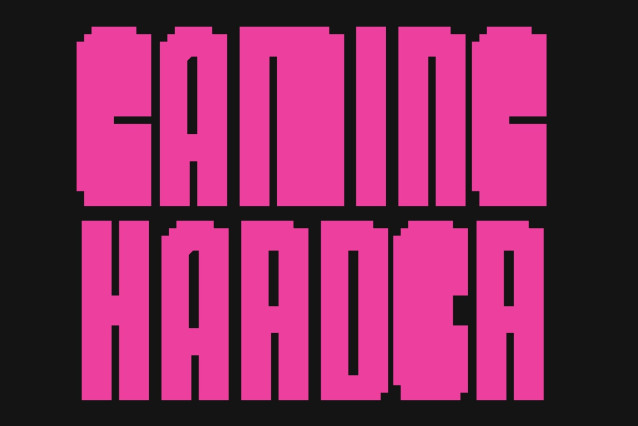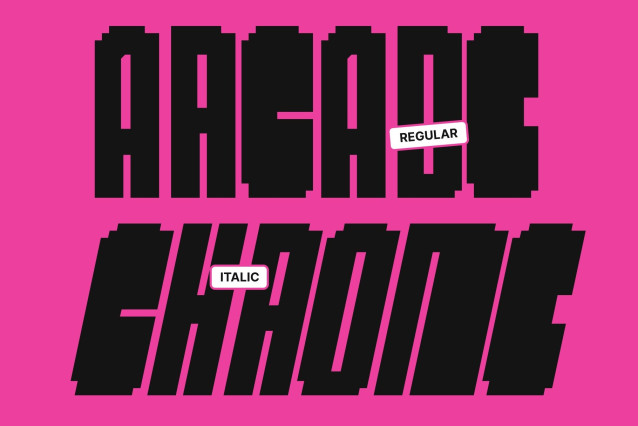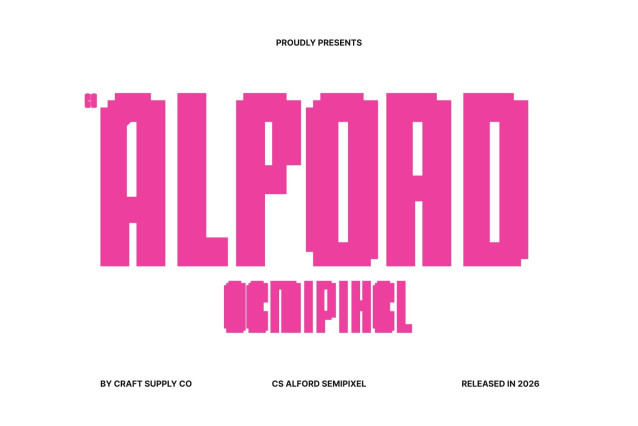
CS Alford Semipixel – Bold Condensed Sans Serif Font: Where Compact Strength Meets Smooth Digital Style
Powerful Narrow Forms with Modern Urban Energy
This is a bold condensed sans serif font designed to deliver maximum visual impact in tight spaces. Its narrow proportions and strong geometric structure create a commanding and energetic appearance that feels modern, efficient, and highly attention-grabbing. Every character is crafted to maintain clarity while maximizing visual presence, making the font ideal for bold headlines and compact layouts.
Semipixel Style with Smooth Pixel Precision
This font offers a smoother and more polished appearance than traditional rigid pixel fonts. The semipixel construction softens the geometry while preserving its retro-digital identity, resulting in a typeface that feels futuristic, sleek, and highly readable.